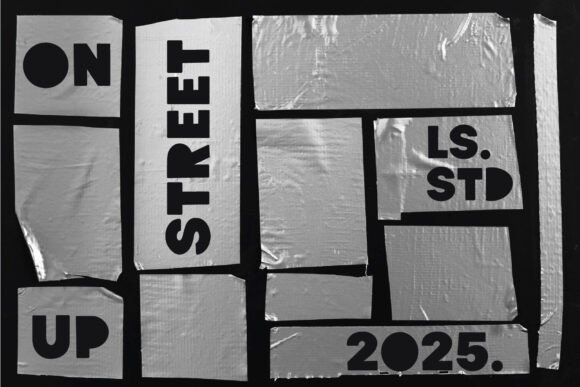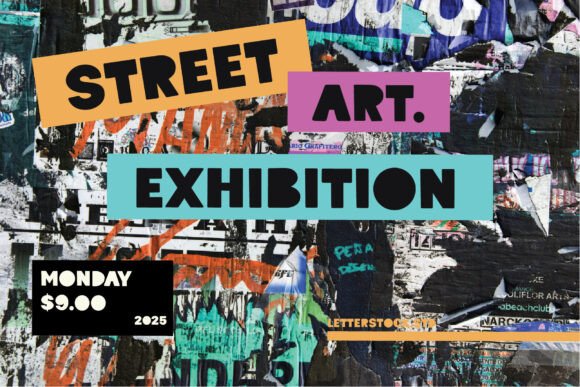
Picklestone Font: Urban Street Art Sans Serif for Bold Logo Design
About the Picklestone Font
Introducing the Picklestone Font, a beautifully crafted typeface designed to elevate your creative projects. Picklestone is a decorative sans font inspired by Urban street art.
Picklestone is a perfect choice for any creative decorative design, such as logos, advertisements, watermarks on photography, stationery, branding projects, display and magazine, invitation, corporate brand, product design, label, business project, and many other projects with a creative, playful touch.
Picklestone excels in headlines, short-form text, and logo design, lending a bold, playful energy to branding projects and posters. Its strong character makes it unsuitable for body text or lengthy paragraphs; readability suffers at smaller sizes. Avoid using it in UI contexts requiring high legibility.
This font’s urban-inspired aesthetic pairs well with clean sans-serif fonts like Open Sans for body copy, offering a balanced contrast. For a more refined look, consider pairing it with a classic serif like Garamond or a geometric sans-serif like Futura. Scripts like Pacifico could add a touch of hand-drawn charm to certain projects.
Picklestone’s core personality is definitively bold and rebellious, reflecting a modern, street-smart attitude. It’s ideal for brands targeting younger demographics or those wishing to project a creative, energetic image.
Picklestone Font Usage Examples
Picklestone Font Example